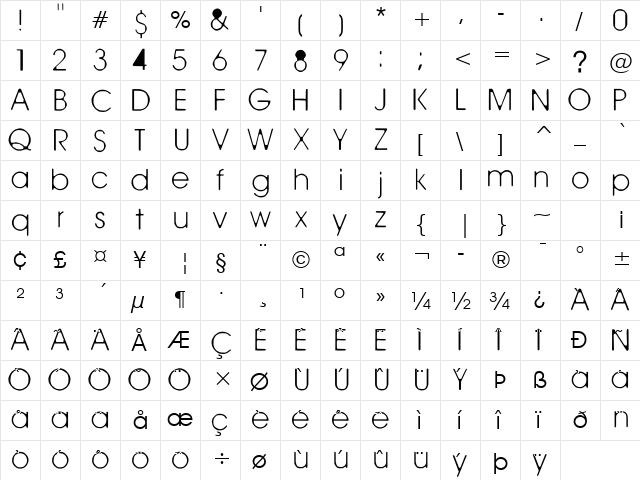
AvantGarde Bk BT Book Font Preview
AvantGarde Bk BT Book
AvantGarde Bk BT Book Font Details
Design Context for AvantGarde Bk BT Typeface
AvantGarde Bk BT is a composed and adaptable typeface that performs quietly and consistently across a wide range of design contexts.